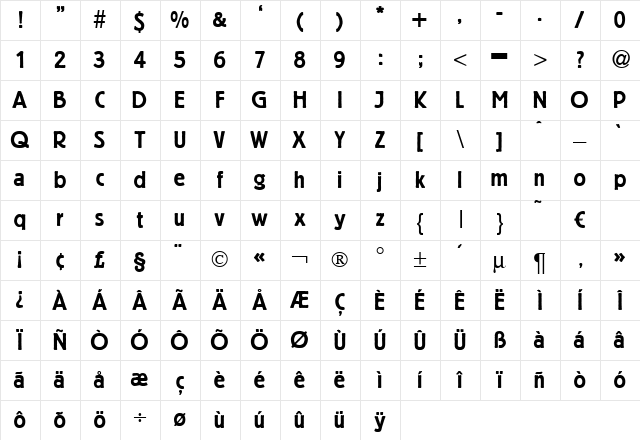
BeginnerDB Bold Free Font
BeginnerDB Bold
Design Context for BeginnerDB
BeginnerDB is a composed and adaptable typeface that performs quietly and consistently across a wide range of design contexts. Its bold stroke weight gives it real presence on the page.
Pro Tip: Use BeginnerDB in both headline and body roles to test its range before committing to a single application.